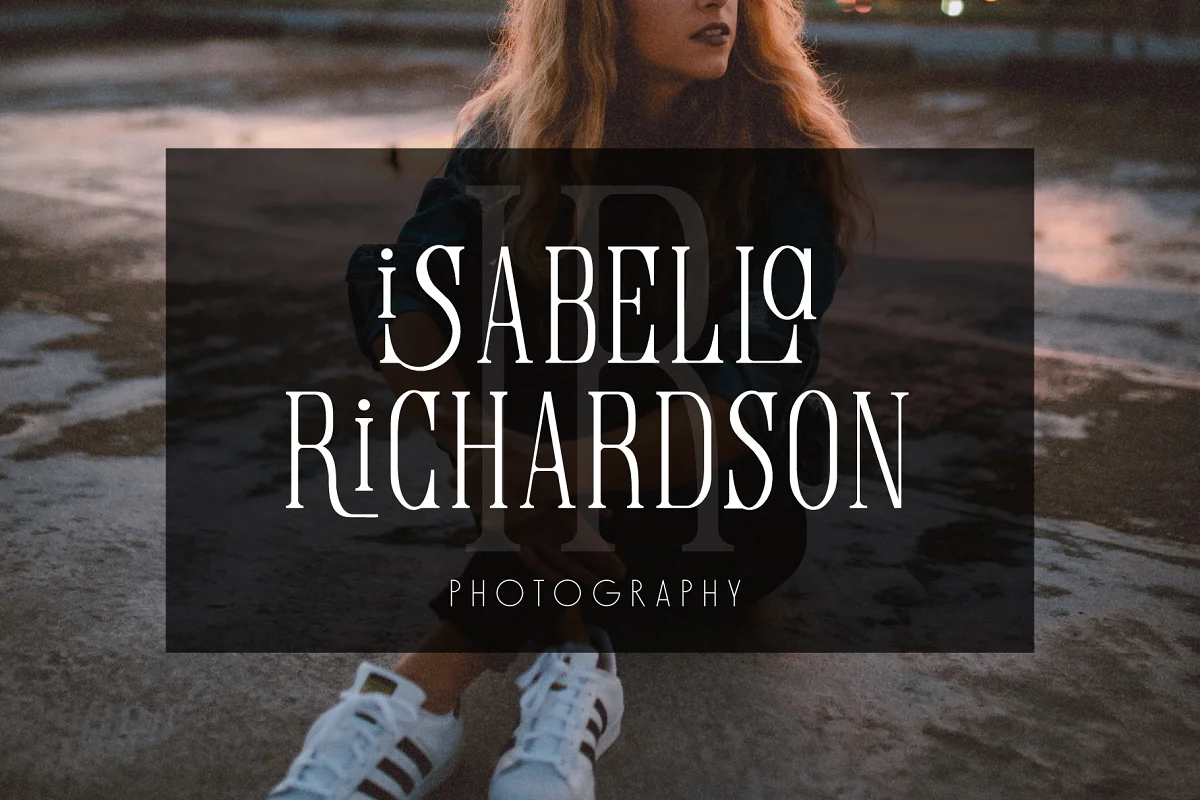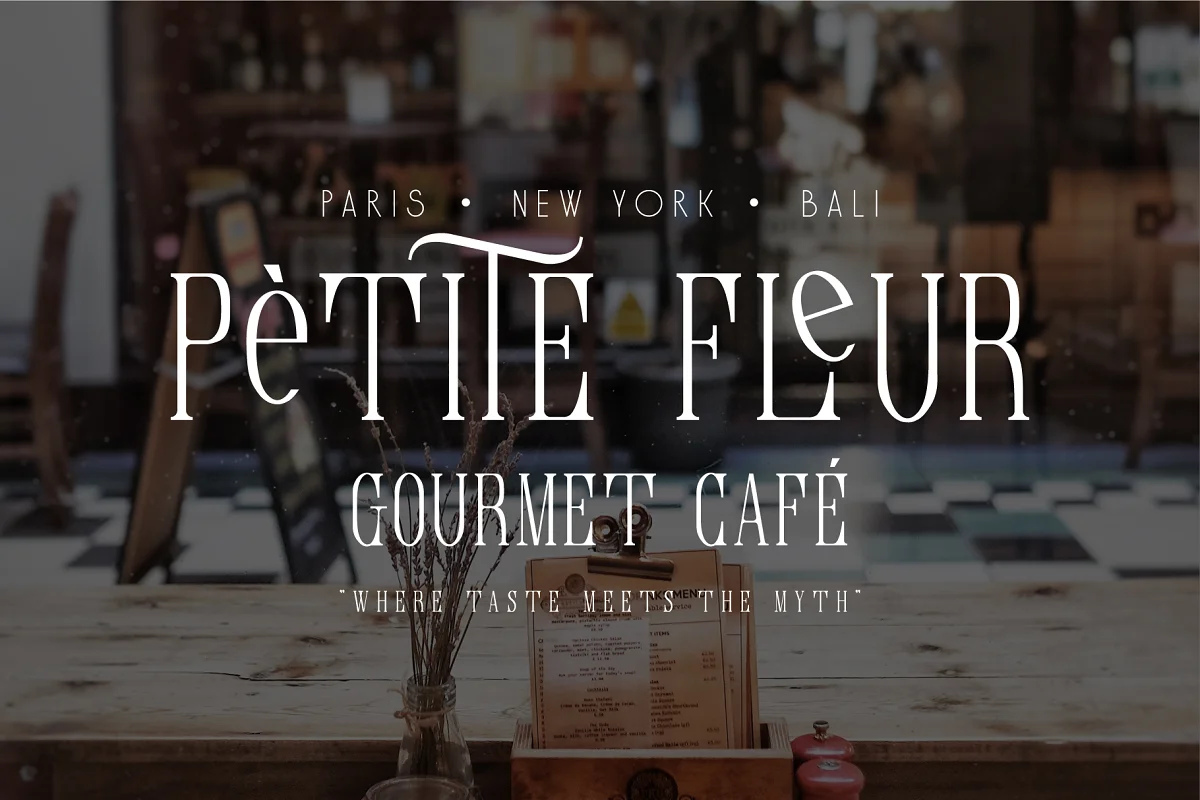
About the Love and Live Font
Introducing Love & Live! a new serif font from drizy! This classy and minimalistic all-caps serif typeface features sleek lines.
With upper case characters, numbers, multi-language, ligatures, stylistic, and punctuation.
Perfect for gorgeous logos & titles, Love & Live will pair beautifully with many fonts and work well with whatever project you’re working on.